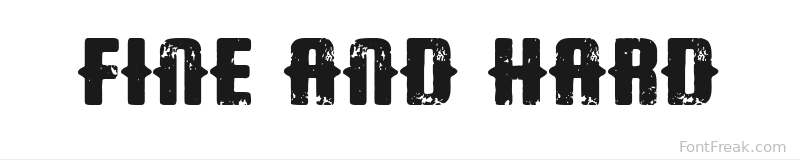
Fine and Hard
Fine and Hard is a striking display font designed by woodcutter Manero, characterized by its bold, rugged aesthetic that immediately captures attention. This typeface falls into the decorative category, featuring a unique blend of heavy stroke weight and a distressed texture that evokes a sense of authenticity and craftsmanship. The uneven edges and varying thicknesses within the characters add depth and personality, making it an ideal choice for projects that require a strong visual statement.
The visual characteristics of Fine and Hard include noticeable contrast between the thick and thin parts of the letters, which enhances legibility while maintaining a bold presence. The spacing is well-balanced, allowing each character to breathe without feeling overcrowded, making it suitable for both headlines and body text. The decorative elements, such as the rugged finish, bring an organic feel that resonates with themes of nature, adventure, and creativity.
This font is perfect for a variety of use cases, including eye-catching wedding invitations that celebrate rustic elegance, adventurous movie posters that want to convey a sense of bold storytelling, and restaurant menus that aim to highlight artisanal or farm-to-table concepts. Additionally, it can be effectively used in branding for small businesses looking to establish a memorable identity in a crowded marketplace.